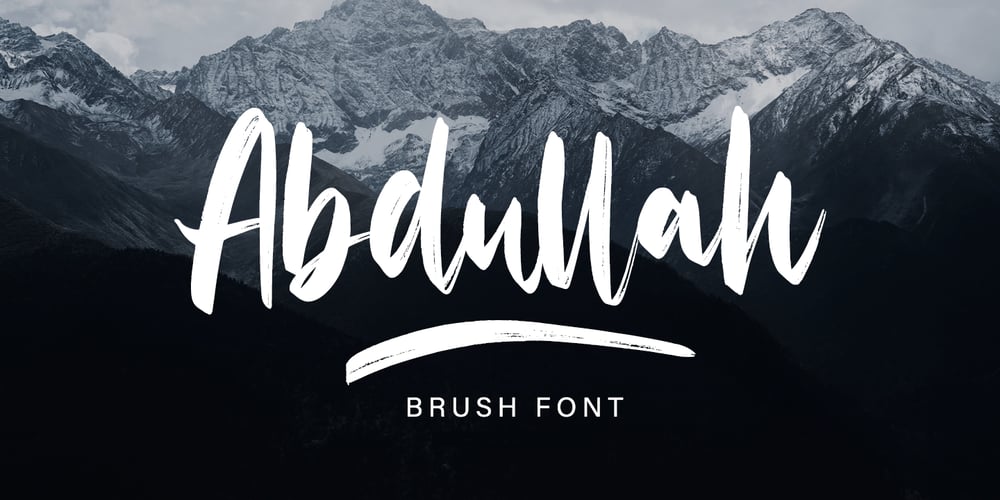
Abdullah
Abdullah font
Abdullah Font Family was designed by Asep Rendi and published by Arendxstudio. Abdullah contains 2 styles and family package options. Abdullah is a beautiful and characterful brush font that has distinctive brush strokes. Abdullah Script is perfect for branding projects, logos, wedding designs, media posts, advertisements, product packaging, product designs, labels, photography, watermarks, invitations, stationery, and any project that needs a handwritten touch. Features : • Character Set A-Z • Numerals & Punctuations (OpenType Standard) • Accents (Multilingual characters) • Ligature There it is! I really hope you enjoy it! Comments and likes are always welcome and accepted. More importantly, don’t hesitate to send a message if you have a problem or question. Now just read this, go there and make it happen!